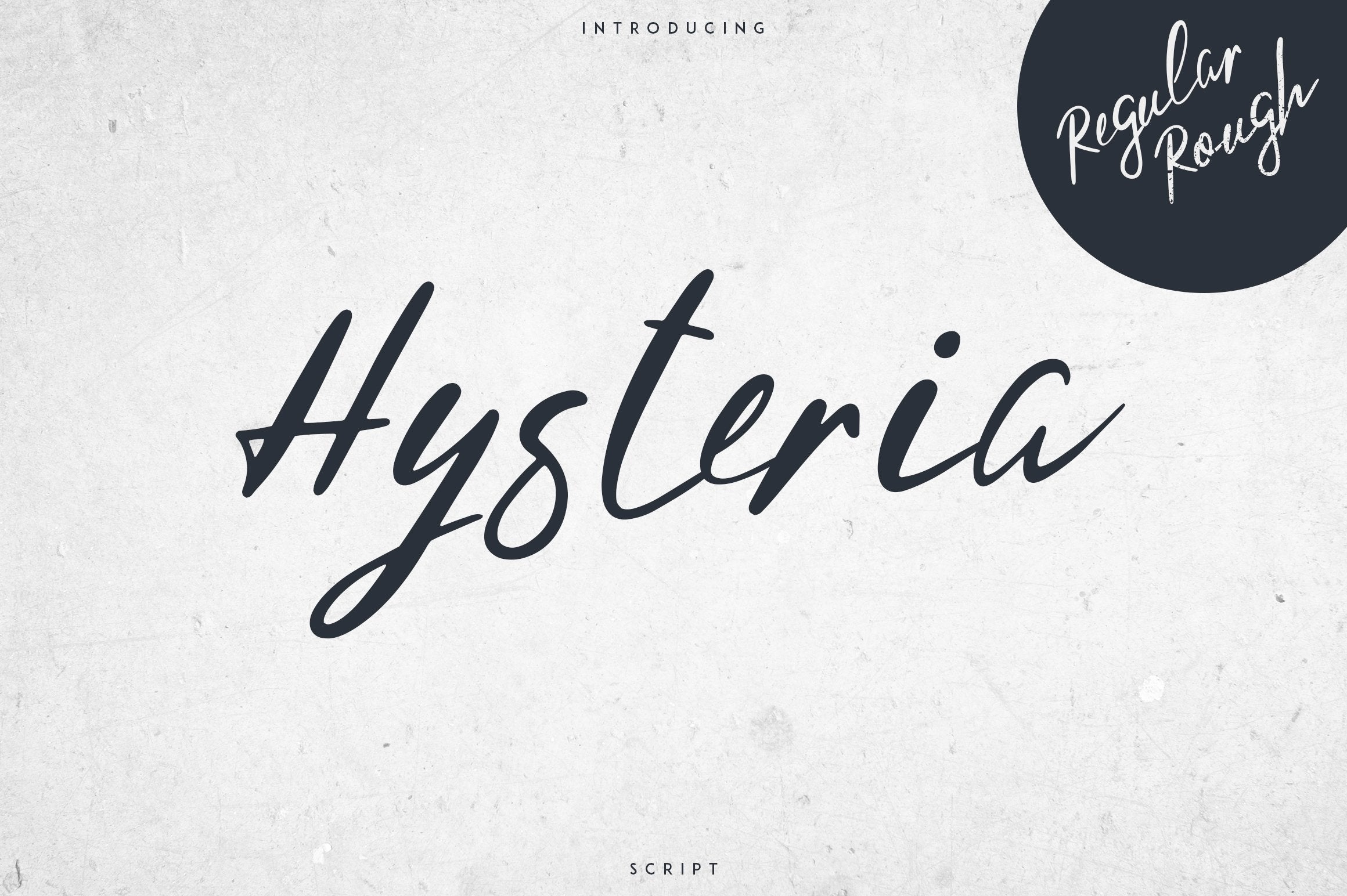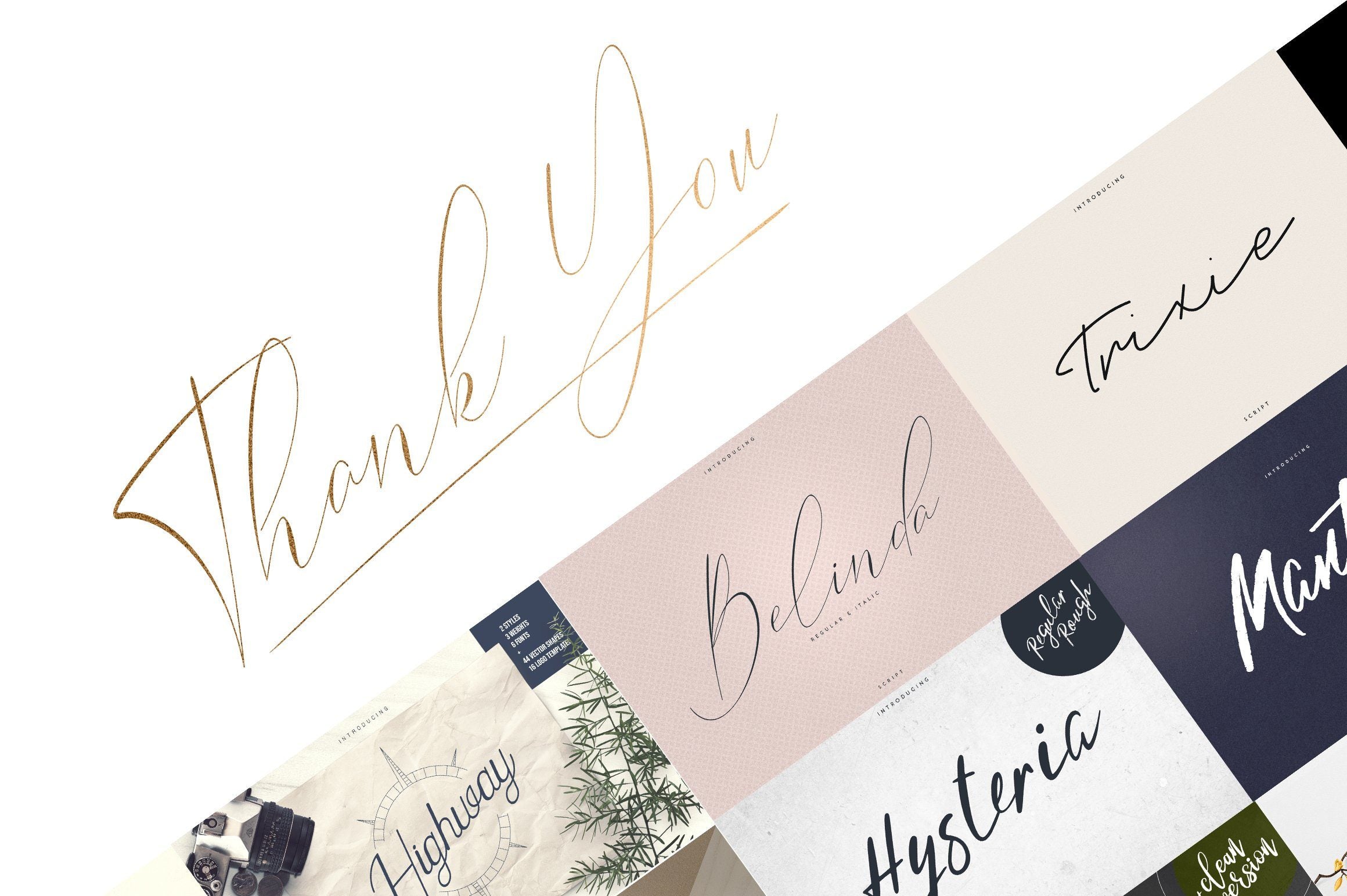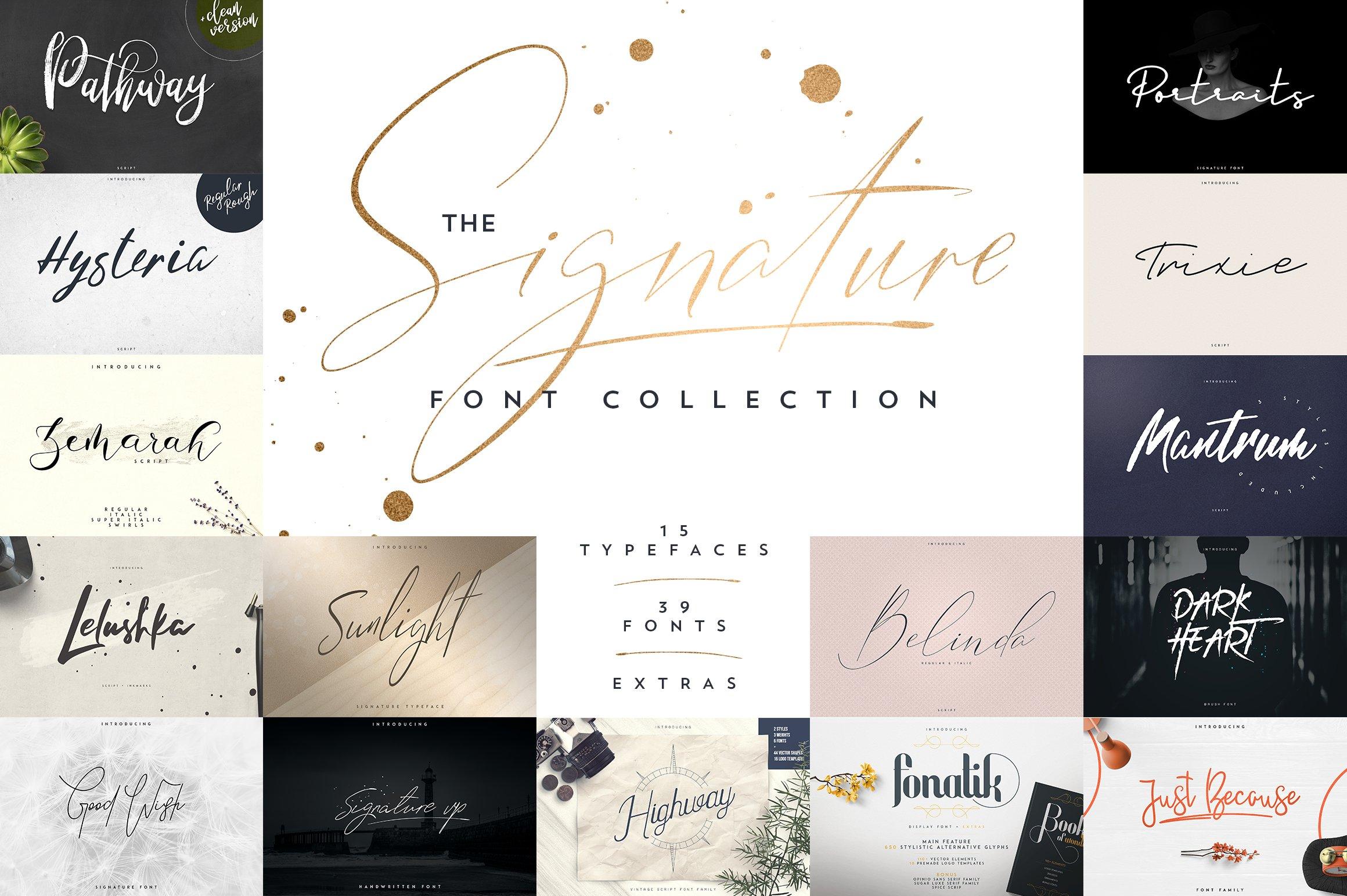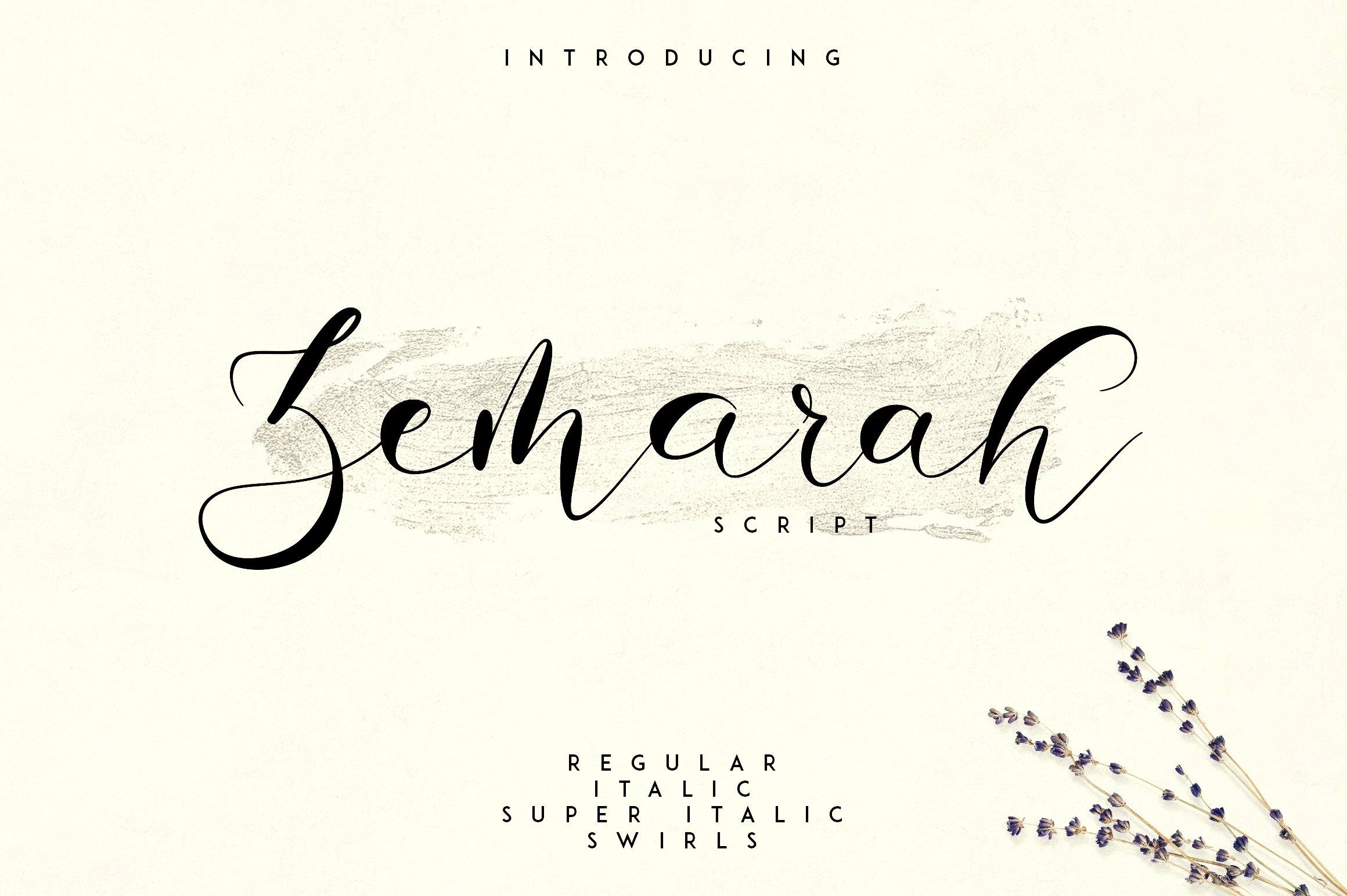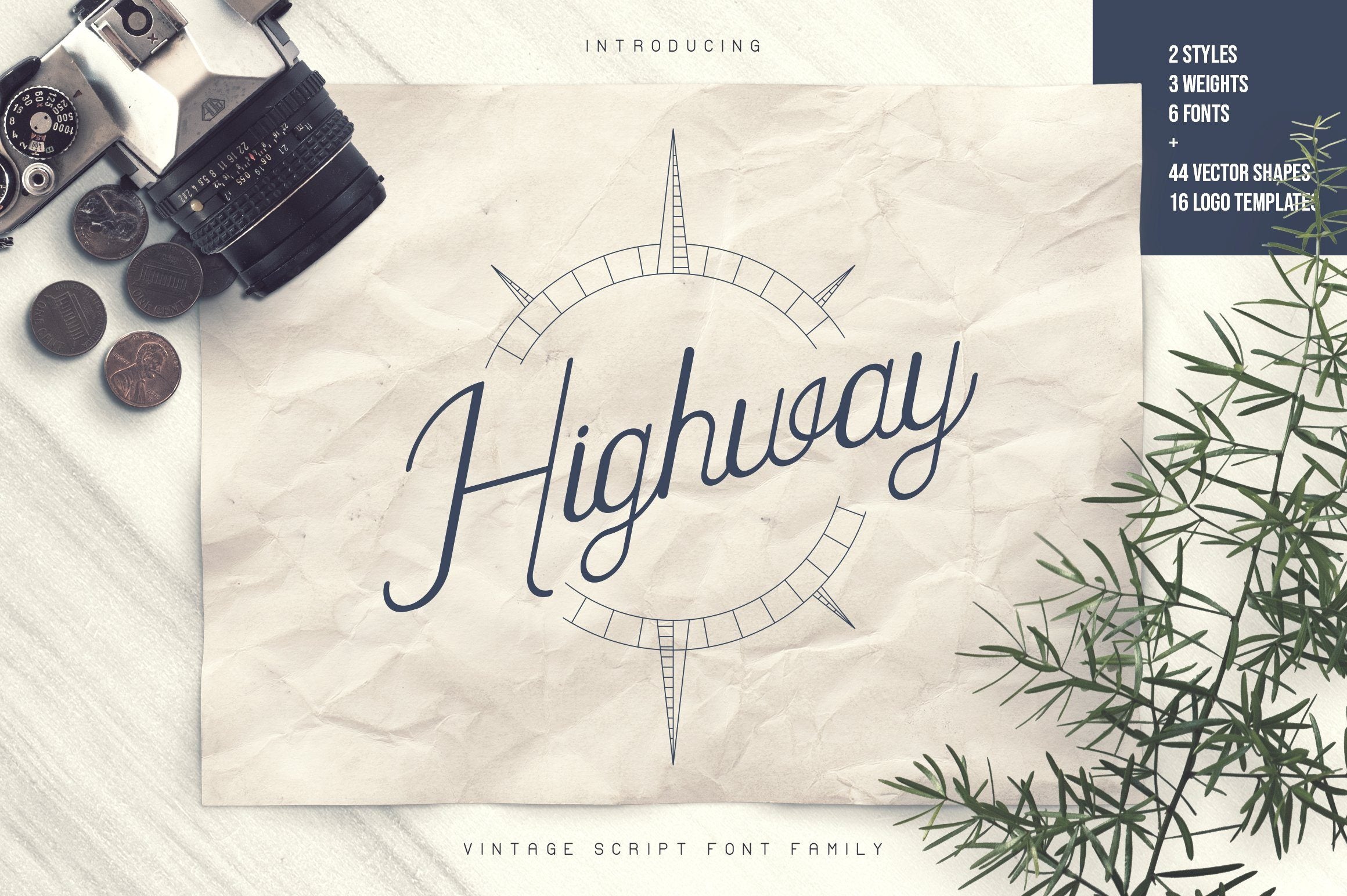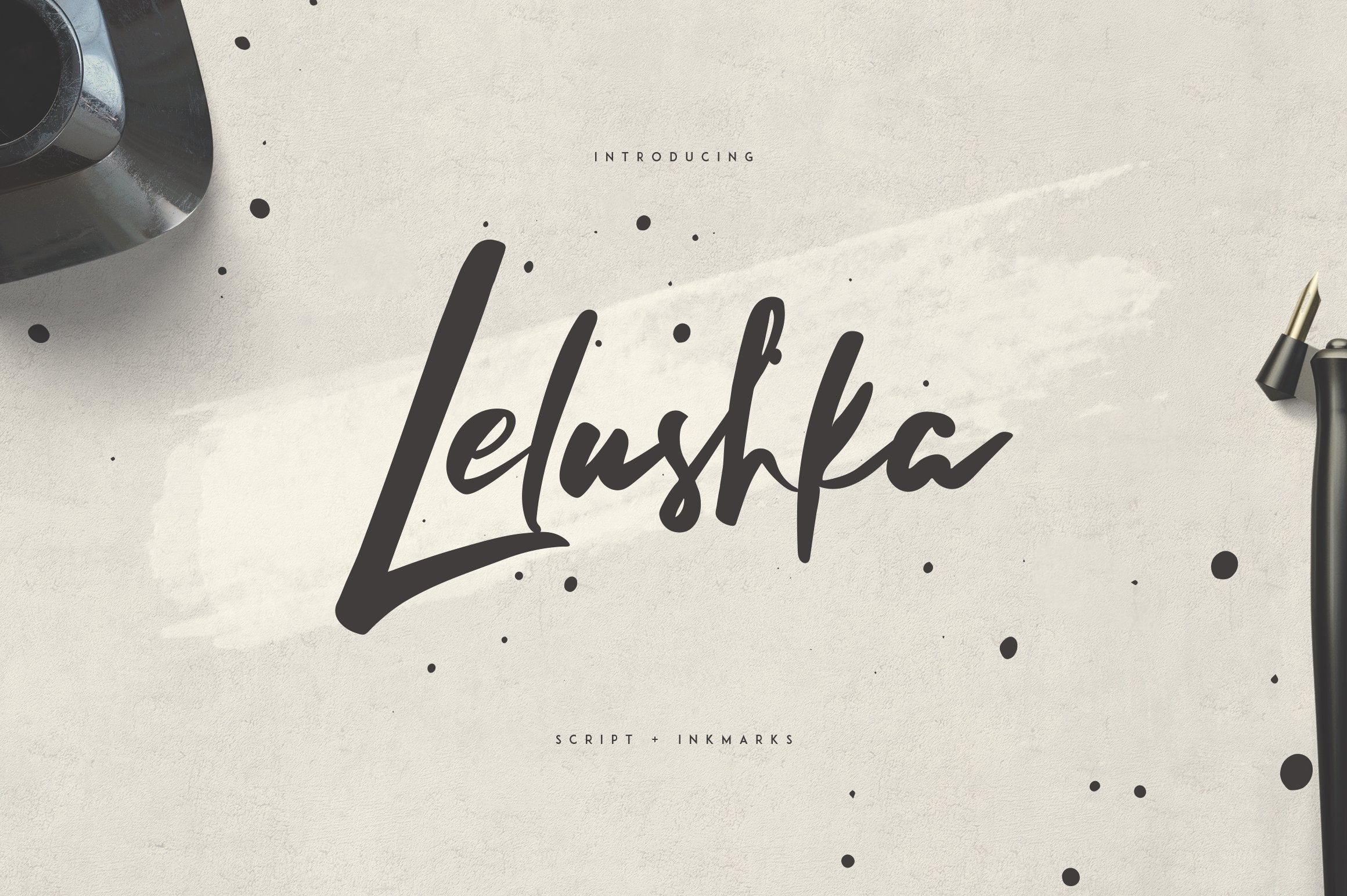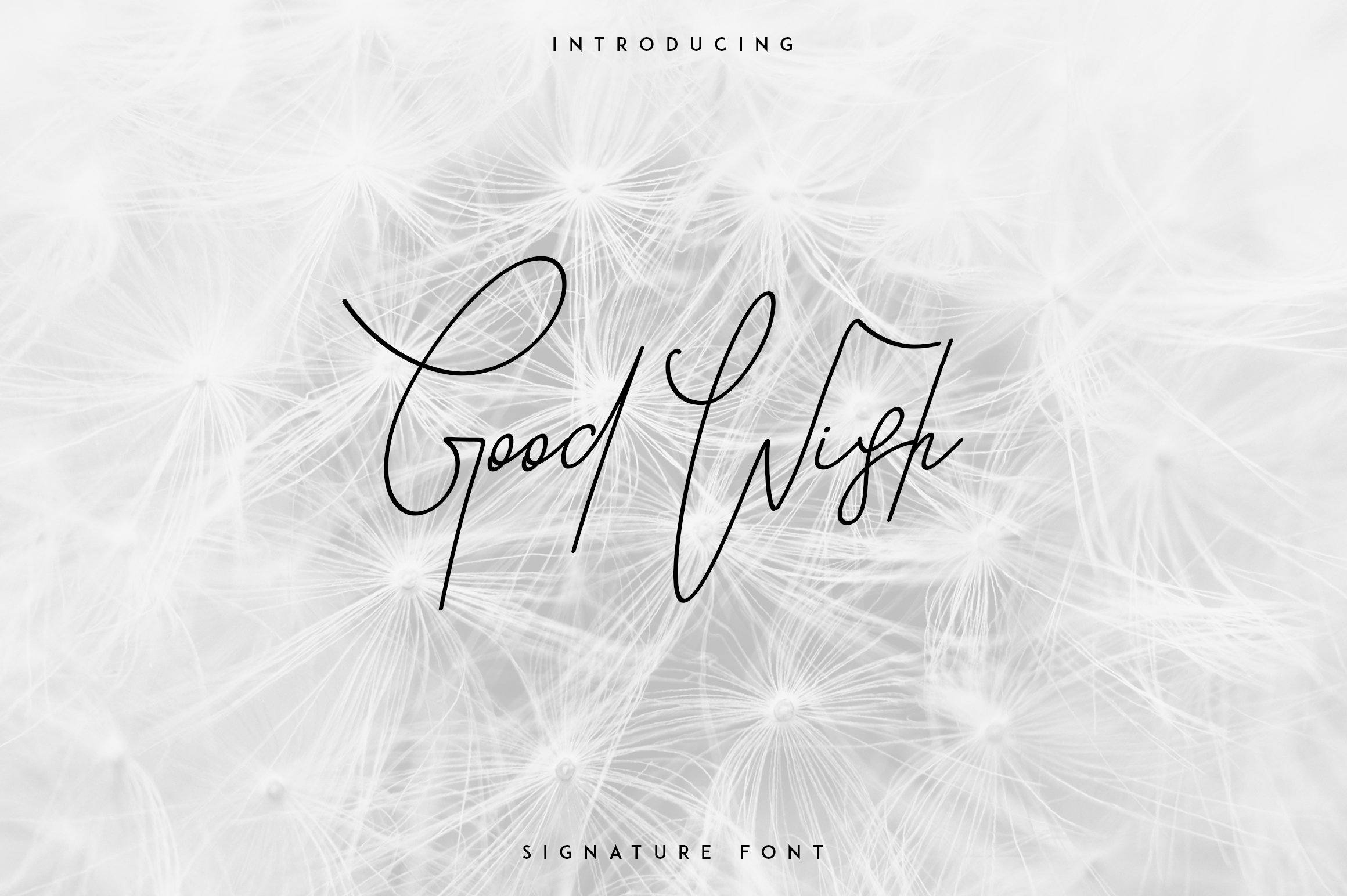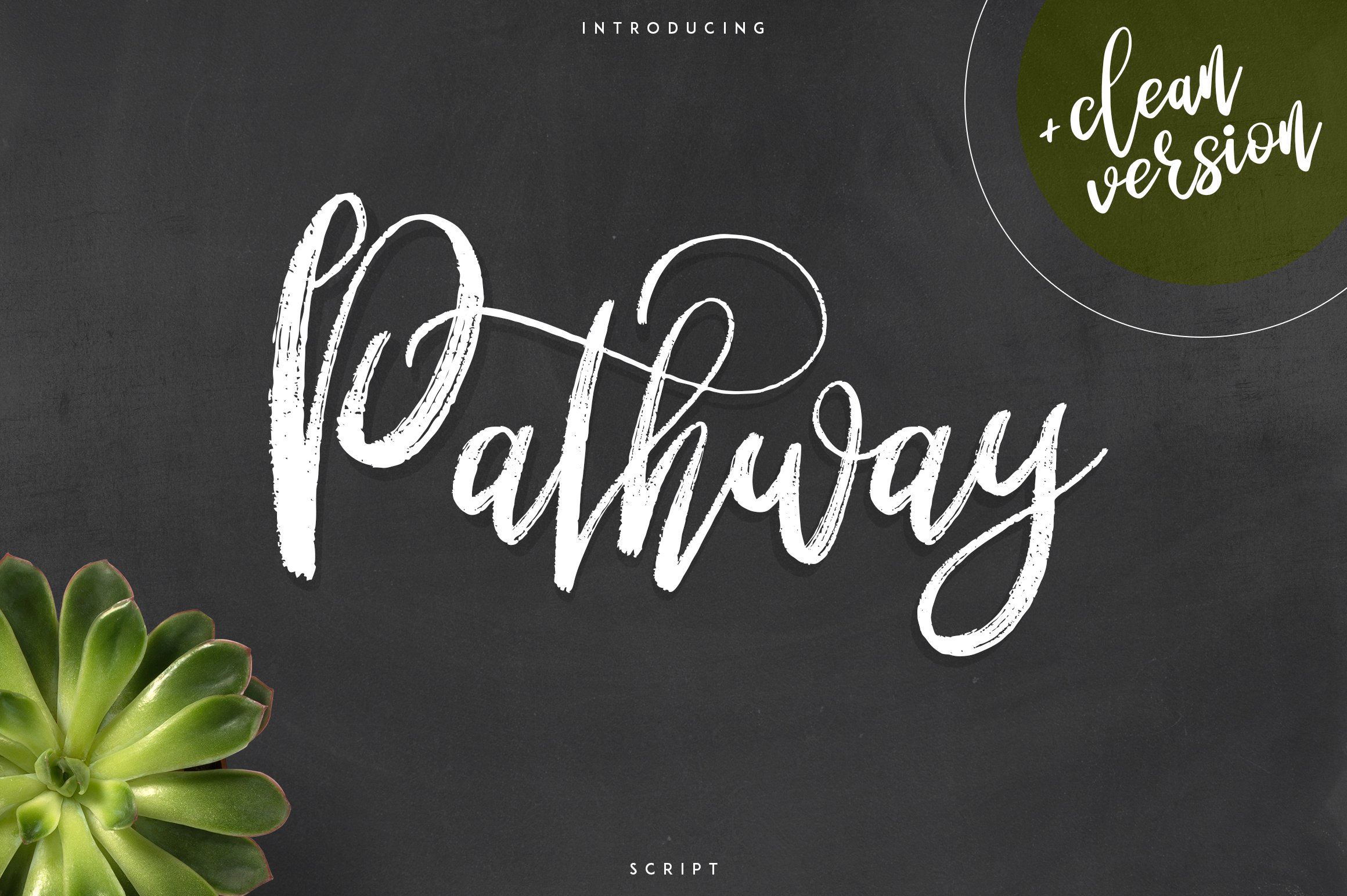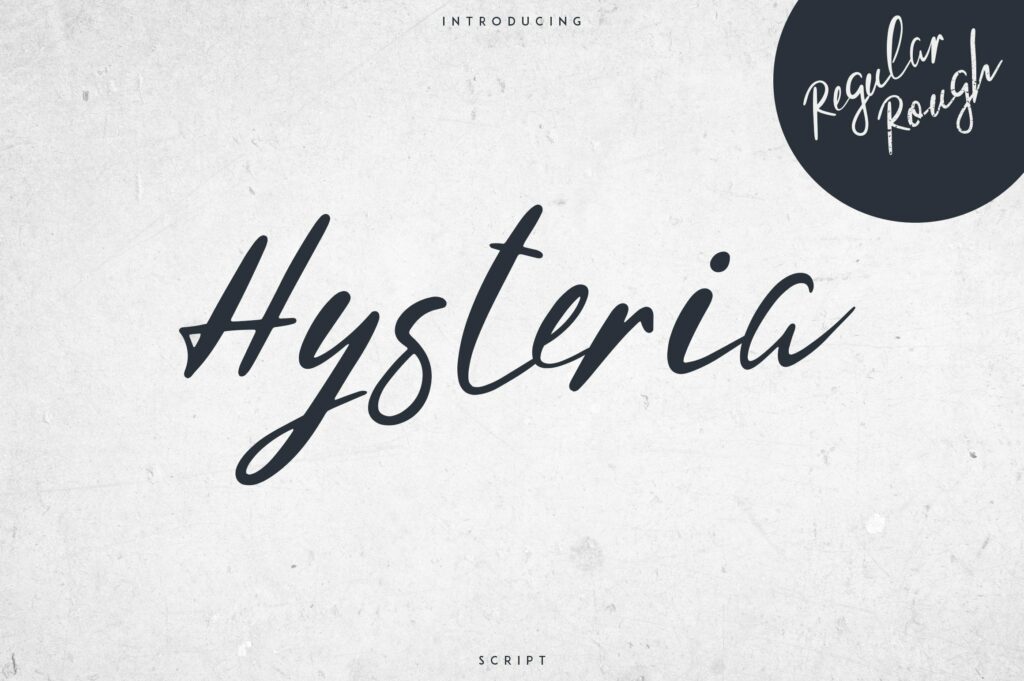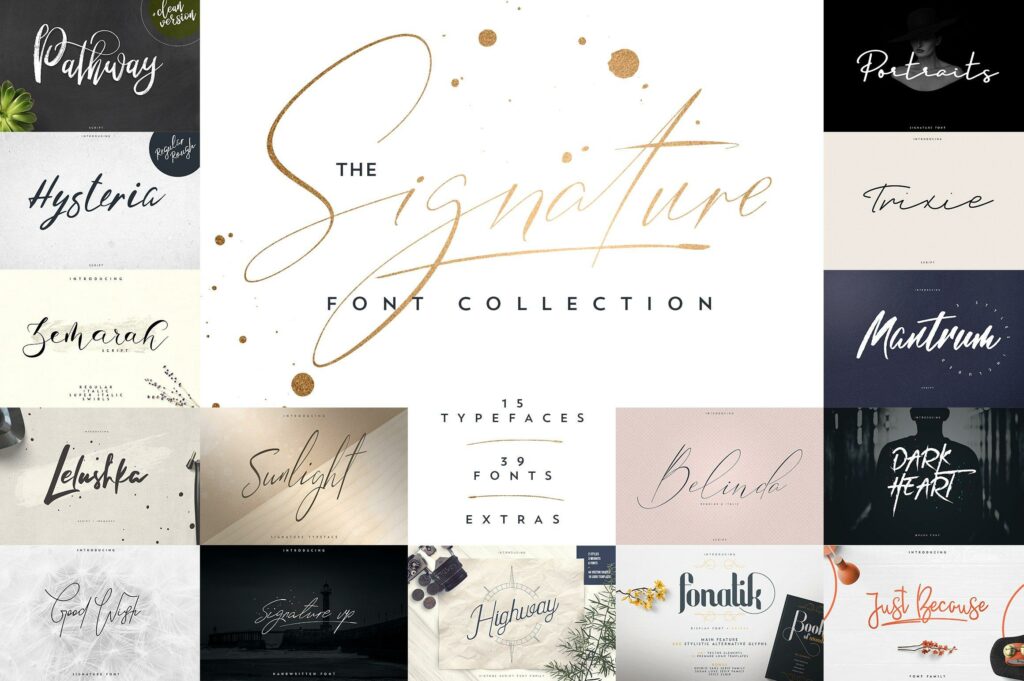
Signature Font Collection | 15in1
About Signature Font Collection | 15in1
Introducing the Signature font collection 15in1 In this collection you will find: Pathway script Uppercase,lowercase,numeral,punctuation & Symbol Multilingual Rough Clean Ligatures – mm, th, tt, bb, ee, kk, ll, nn, oo, rr, ss, ff Hysteria script Uppercase,lowercase,numeral,punctuation & Symbol Multilingual Regular Rough Ligatures Natural feel Zemarah script Uppercase,lowercase,numeral,punctuation & Symbol Multilingual Regular Italic Super Italic Ligatures Alternative glyphs Swirls Lelushka script Uppercase,lowercase,numeral,punctuation & Symbol Multilingual Regular 20 Ink marks Ligatures Alternatives Good Wish signature font Regular Italic Uppercase,lowercase,numeral,punctuation & Symbol Multilingual Sunlight signature typeface Uppercase,lowercase,numeral,punctuation & Symbol Multilingual Regular Italic Super Italic Ligatures – ll, oo, tt, Signature VP – handwritten font Uppercase,lowercase,numeral,punctuation & Symbol Multilingual 26 Swashes Ligatures ab, al, at, il, it, ul, th, ch, ck, cl, ct, of, ol, ot, op, oo, el, et, ep, ee, sl, sh, rr, re, ll, ss, ff, st Natural feel Highway – vintage font family Uppercase,lowercase,numeral,punctuation & Symbol Multilingual Light Regular Bold Light Italic Italic Bold Italic 44 Vector elements 16 Premade logo templates Belinda script Uppercase,lowercase,numeral,punctuation & Symbol Multilingual Regular Italic Alternatives Ligatures ll, il, it, ul, al, at, ch, ck, cl, ct, nt, re, rr, ee, el, et, sh, sl, ss, th, ff, st Natural feel Fonatik display font 650 stylistic alternative glyphs Perfectly connected Smooth readable glyphs Multilingual support Ligatures : Tb, Tf, Tl, Tt, Tk, fi, fb, ff, ft, fk, fl, Ly, Lg Book for wonder 10 premade logo templates 11 Farm animals 7 Sea animals 8 Wild animals 15 Cake and candy 19 flowers and leafs 8 Trees 44 Ornaments Files : Ai, EPS, PSD, JPEG BONUS Sugar luxe serif family Spice script Opinio sans serif family Portraits – Signature font Uppercase,lowercase,numeral,punctuation & Symbol Multilingual Regular Trixie script Uppercase,lowercase,numeral,punctuation & Symbol Multilingual Light Regular Bold Alternatives Ligatures Natural feel Mantrum urban script Uppercase,lowercase,numeral,punctuation & Symbol Multilingual Regular Italic Stretched Ligatures DarkHeart brush font Uppercase,lowercase,numeral,punctuation & Symbol Multilingual Vector Elements JustBecause font family Uppercase,lowercase,numeral,punctuation & Symbol Multilingual Light Regular Bold ExtraBold Black Swashes Photoshop styles Feel free to contact me if you have any questions! Mock ups and backgrounds used are not included! Thank you!